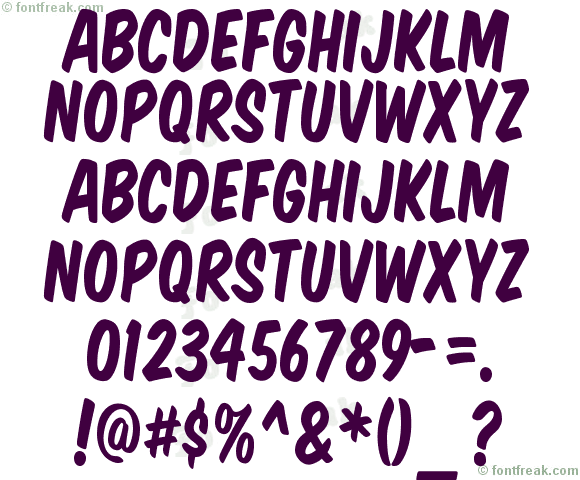
Introducing the Supermarket Sale font by Wolfbainx, a dynamic display typeface that captures the essence of retail excitement. This freeware font is characterized by its bold, thick strokes and a playful design that embodies the hustle and bustle of supermarket sales. The letters are well-spaced, offering excellent legibility while maintaining a vibrant aesthetic. The font features subtle decorative elements that evoke a sense of urgency and appeal, making it perfect for grabbing attention in any promotional material.
With its striking visual characteristics, the Supermarket Sale font is ideal for a variety of applications. It excels in creating eye-catching signage for retail environments, drawing customers in with its energetic style. Graphic designers will find it perfect for designing promotional flyers, posters, and banners that require a punchy, attention-grabbing typeface. Additionally, this font can be effectively used in digital marketing campaigns, social media graphics, and even food trucks or pop-up restaurant menus, where capturing the audience's interest is key.
The target audience for the Supermarket Sale font includes graphic designers, small business owners, and content creators who seek to elevate their branding with a unique typographic flair. Its versatility allows it to adapt to various marketing needs, making it a valuable asset for anyone looking to create impactful visual communication.
What sets the Supermarket Sale font apart is its ability to convey a sense of urgency and excitement that resonates with customers. Its distinctive style not only enhances the visual appeal of any project but also delivers a clear message of value and accessibility. For those looking to elevate their design work, the Supermarket Sale font free download offers an opportunity to incorporate a lively, modern typeface that stands out in today’s competitive landscape.